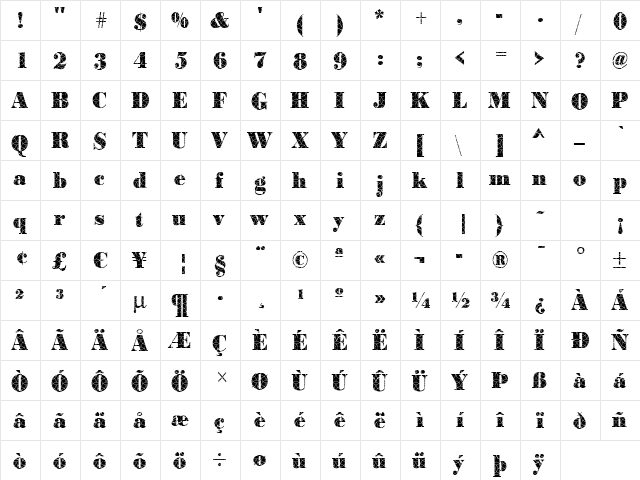
BodoniSpider Regular
Design Context for BodoniSpider Typeface
BodoniSpider is a composed and adaptable typeface that performs quietly and consistently across a wide range of design contexts.